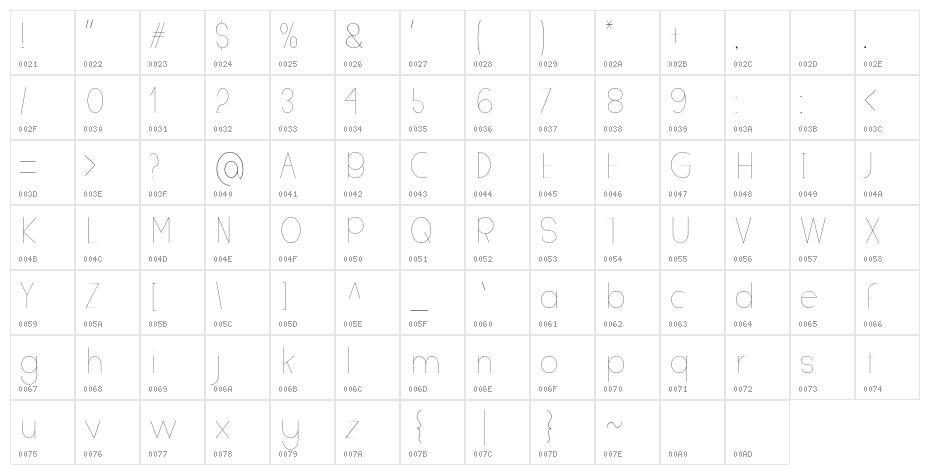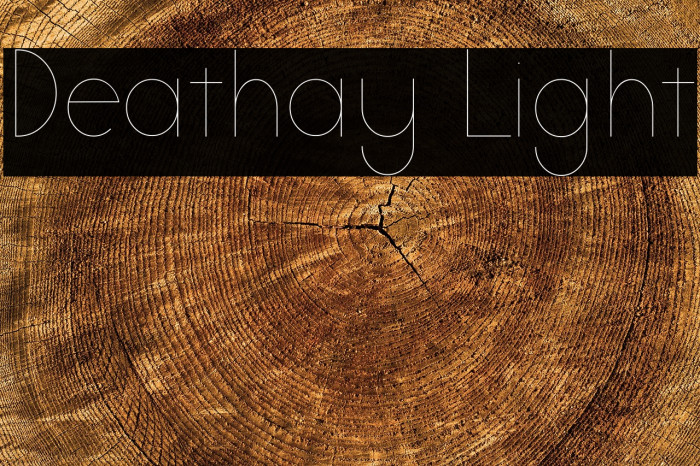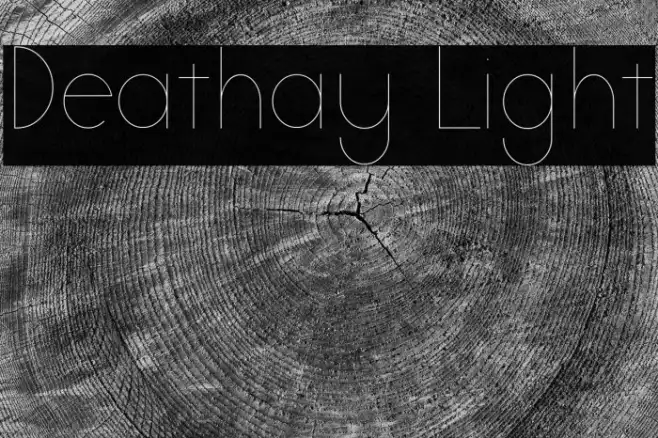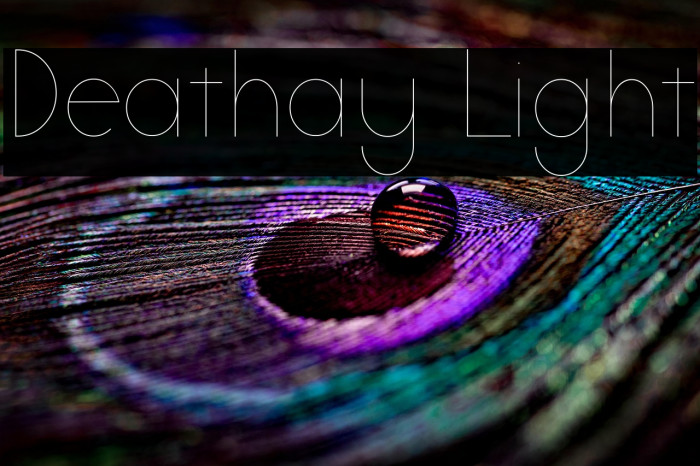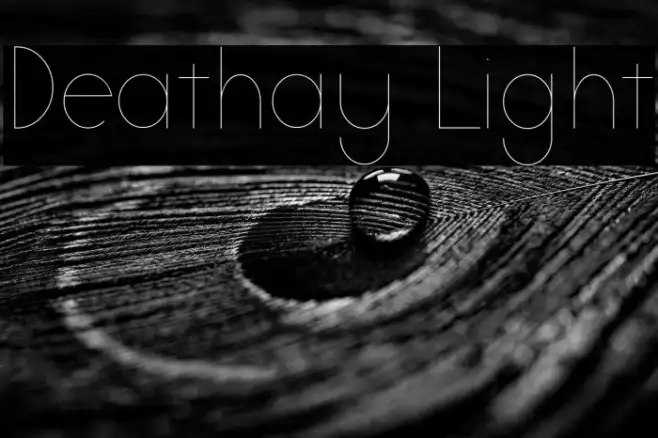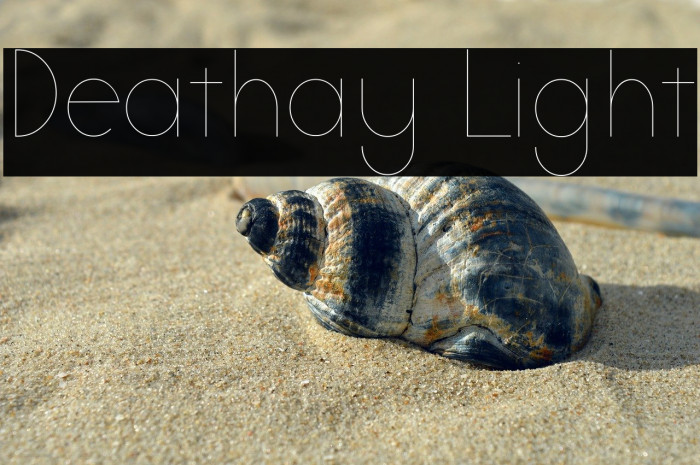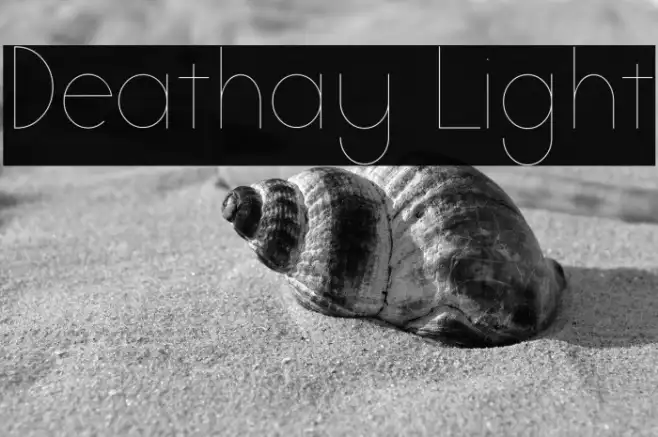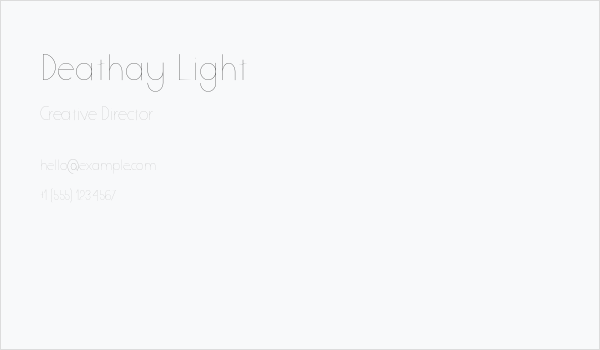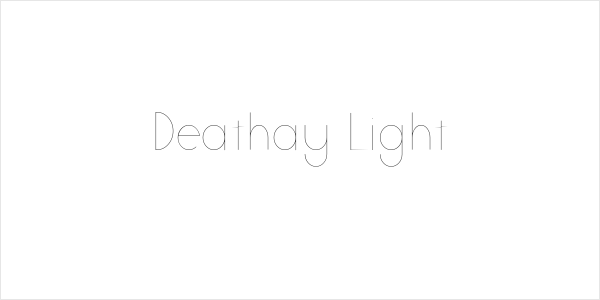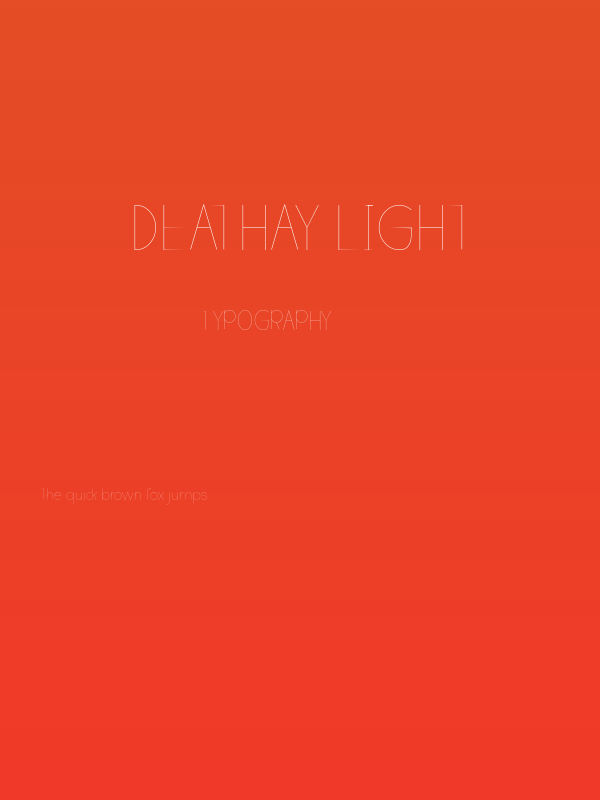
Deathay Light Font
Deathay Light Description
This font features a sleek and modern design with thin, elongated letterforms that convey a sense of elegance and sophistication. The characters are crafted with minimal contrast, maintaining a consistent stroke width throughout. Its geometric structure is evident in the clean lines and precise angles, making it suitable for contemporary design projects. The uppercase and lowercase letters maintain a harmonious balance, while the numerals and special characters are designed to complement the overall aesthetic. This font's simplicity and clarity make it versatile for various applications.
| Proposed Projects | Ideal for branding, editorial design, fashion magazines, and minimalist websites. |